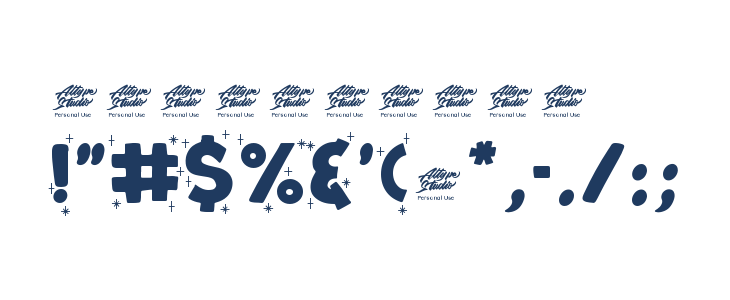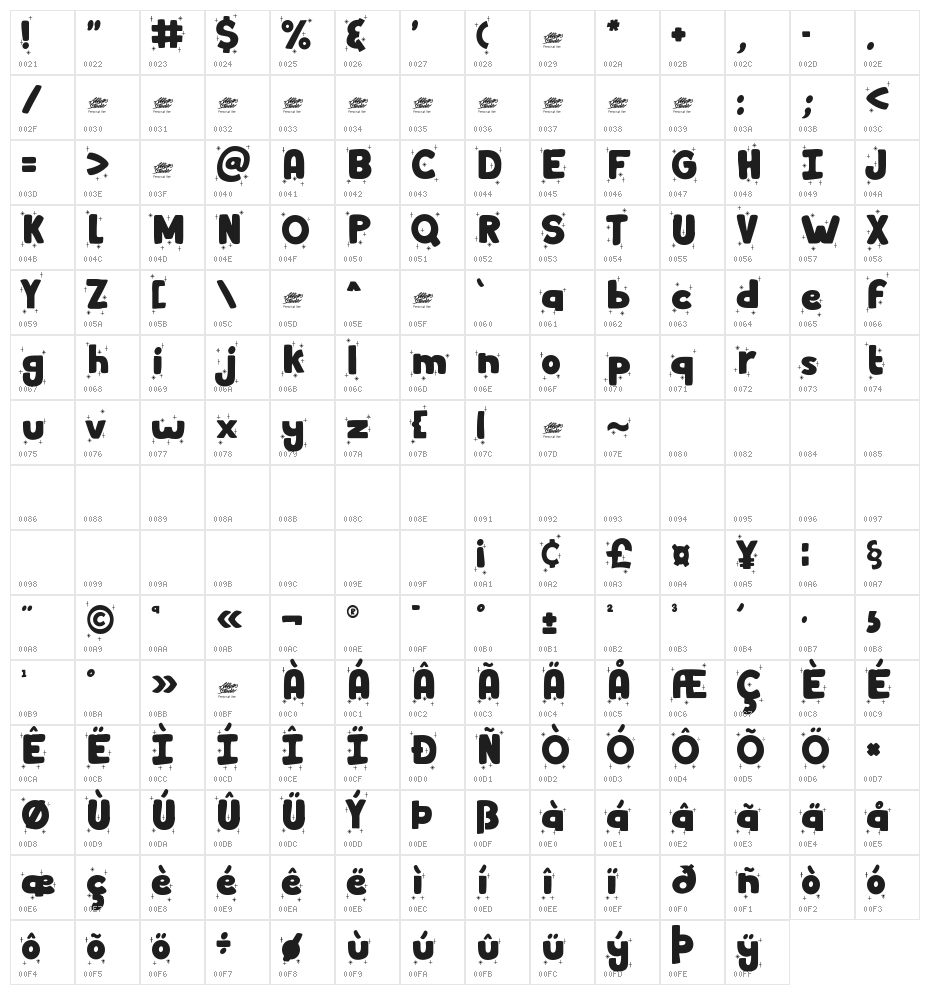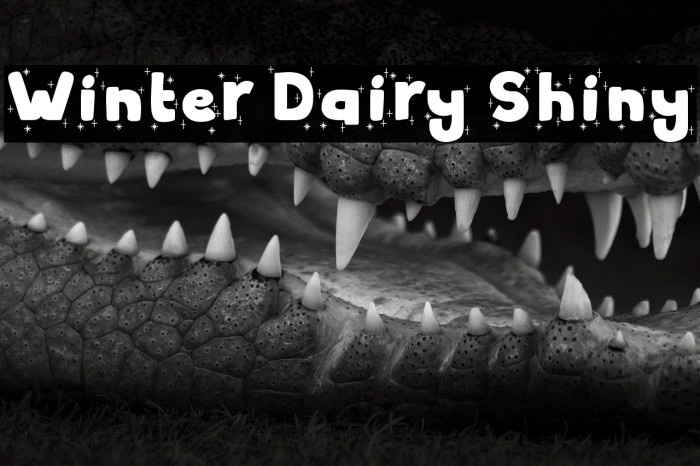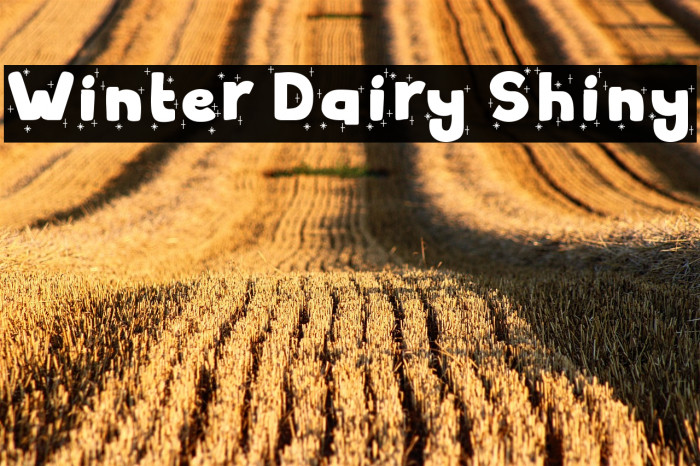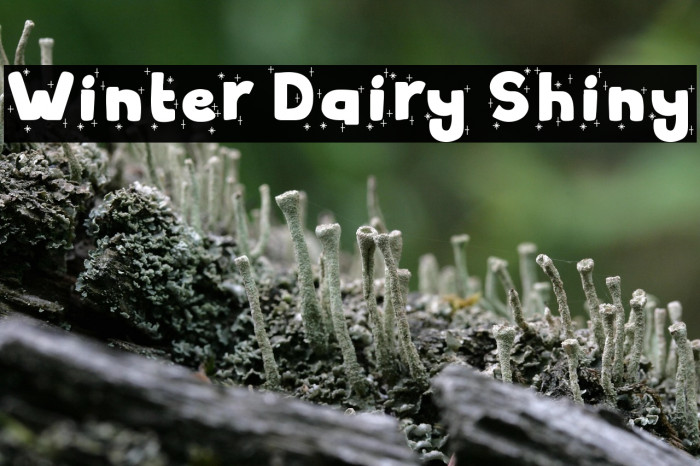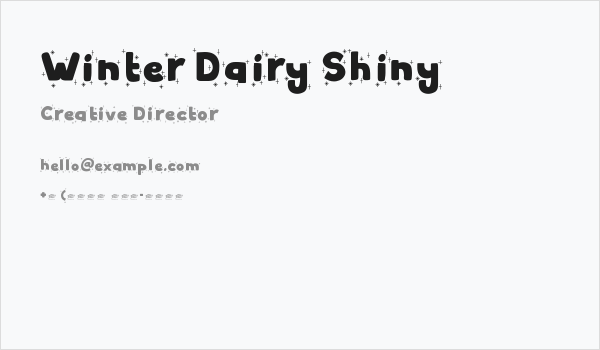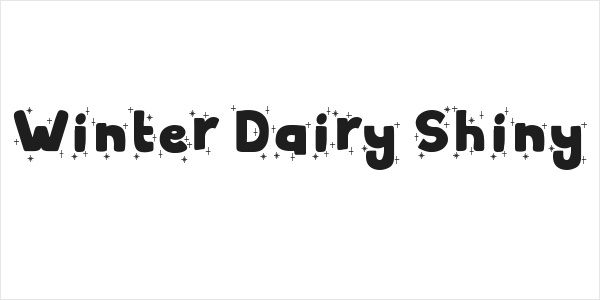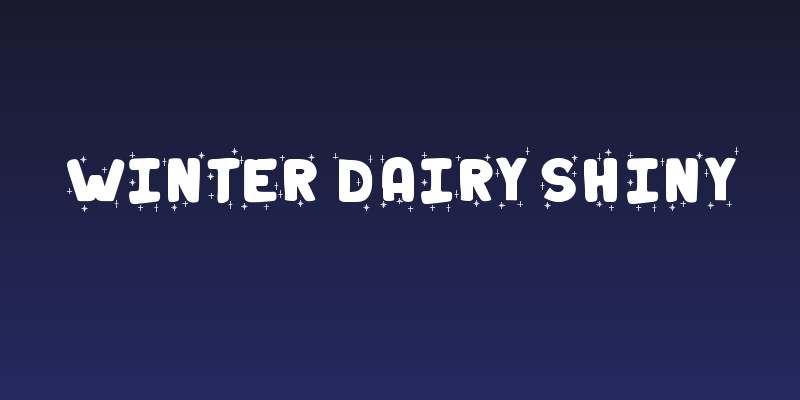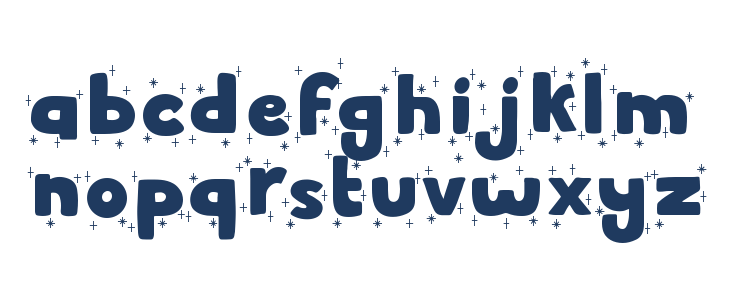
Winter Dairy Shiny Font
Winter Dairy Shiny Description
This playful and decorative font features bold, rounded characters adorned with small star-like sparkles, giving it a whimsical and festive appearance. The uppercase and lowercase letters maintain a consistent style, with a slightly chunky and friendly look. The numbers and special characters are equally bold and embellished, making them stand out. This font's unique design is perfect for capturing attention and adding a touch of fun to any project. Its decorative elements make it ideal for seasonal themes or playful branding.
| Proposed Projects | Ideal for holiday cards, children's book covers, playful branding, party invitations, and festive posters. |